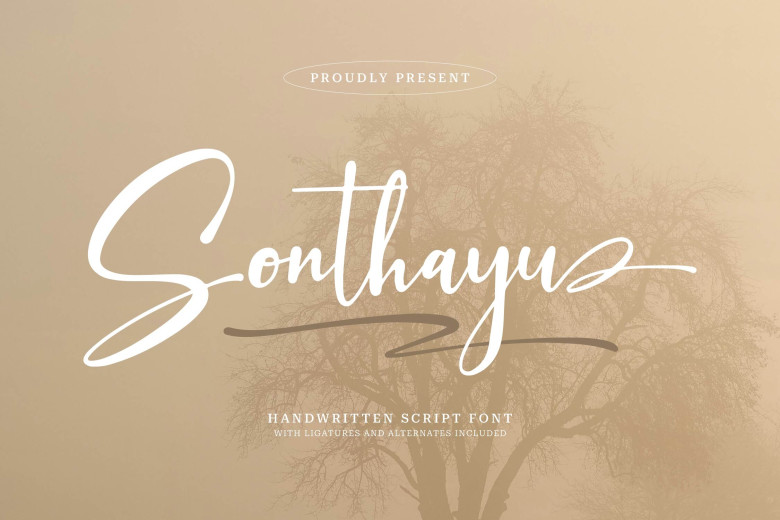
Sonthayu Font
Sonthayu is an aesthetic style of writing that is indeed gorgeous. It resembles Caligraphy, the lettering, and the forms of the letters are so elegantly curved. All the ascending and descending as well as the curves are made with precision to enhance the look of the writing as if it is ornamental.
It’s common in places such as invations cards, certificates or any other place where one wants the writing to be outstanding and somewhat special.
Sonthayu Handwritten Font